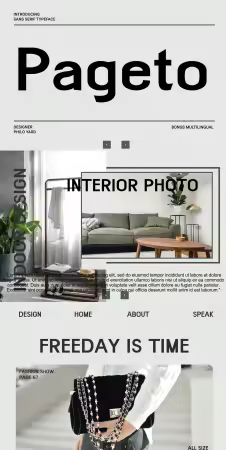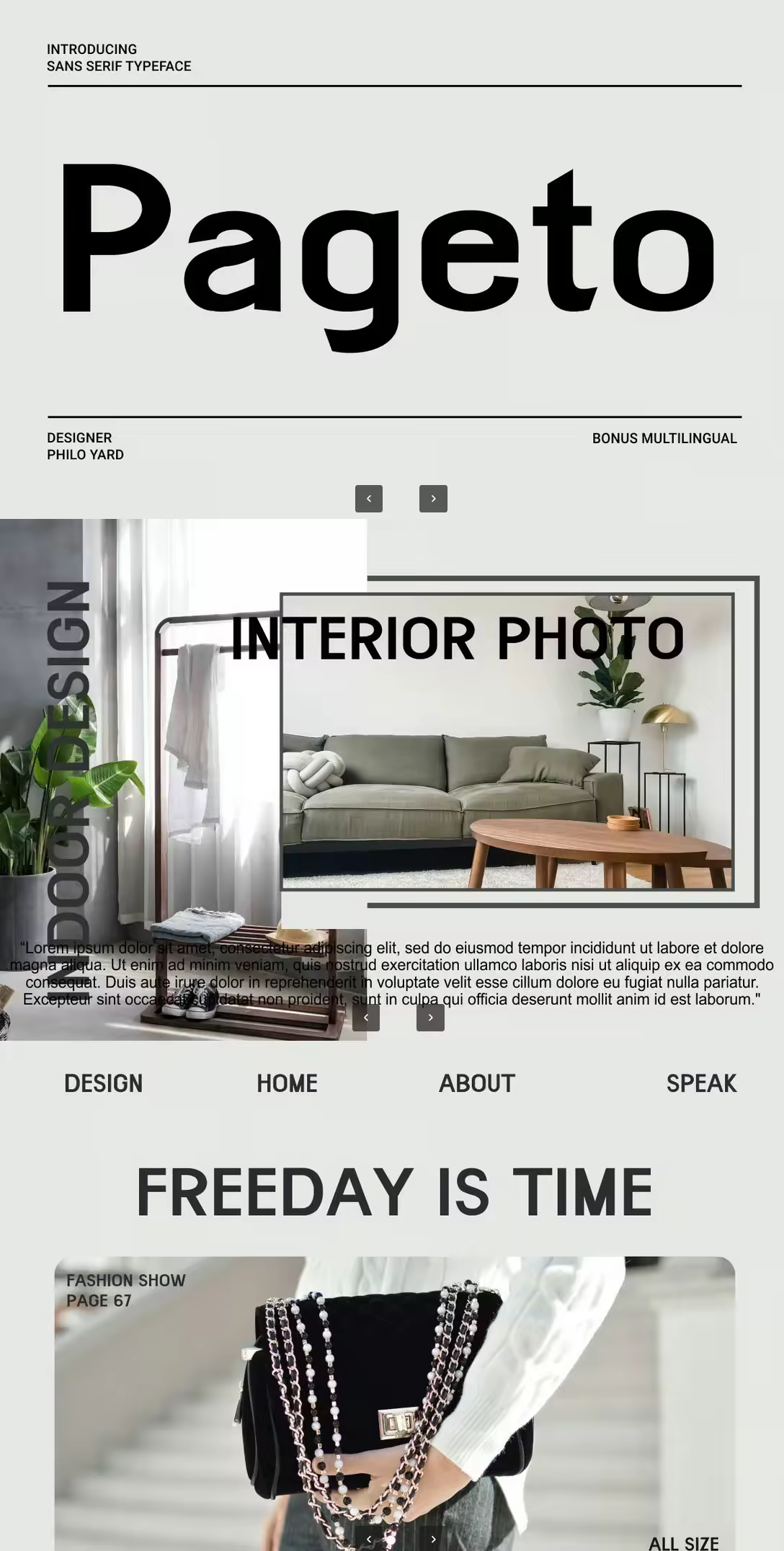
Introducing Pageto - Typeface Sans Serif Font is a modern serif typeface crafted for timeless elegance and visual storytelling. Its clean contrast and subtle ligatures make it ideal for branding, fashion editorials, and luxury packaging. Designed with cinematic grace, this font evokes sophistication and aesthetic harmony in every composition.
Font Features
Perfect For: Luxury branding, editorial headlines, packaging, and logo design.